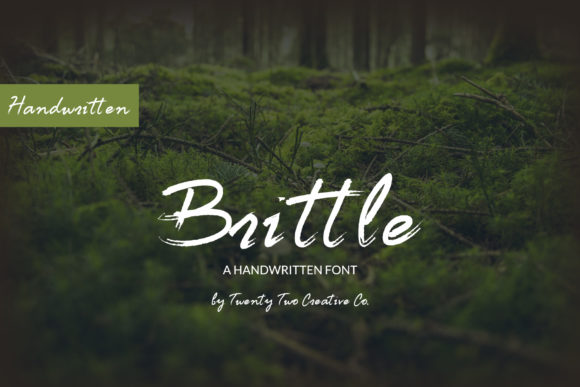
The Sound of Creativity: Unleashing the Potential of Brittle Font
Have you ever been on a nature walk, surrounded by the serene beauty of the great outdoors, when suddenly, the sound of twigs breaking under your feet sparks a creative idea? For me, that moment was the inspiration behind the Brittle font. As a designer, I’ve always been fascinated by the way sounds can evoke emotions and influence our work. In this article, we’ll explore the world of Brittle font, its unique features, and how to make the most of it in your designs.
A Design Moment: Finding the Perfect Font
I recall working on a project for a outdoor brand, struggling to find the perfect font that captured the essence of nature. The client wanted something that would stand out, yet blend seamlessly with the surroundings. After hours of searching, I stumbled upon the Brittle font, and it was love at first sight! The font’s organic, earthy feel resonated with the brand’s message, and I knew I had found the perfect fit.
So, what makes Brittle font so special? Here are a few things I love about it:
- ✨ Unique sound-inspired design that adds a touch of whimsy to any project
- ✅ Highly versatile, suitable for branding, advertising, poster design, logotypes, book covers, magazines, packaging, blogs, and more
- 💡 OpenType features, glyphs, and stylistic alternates offer endless creative possibilities
Of course, no font is perfect, and Brittle has a few quirks:
- 🤔 Some characters may appear a bit fragile or delicate, requiring careful consideration for optimal legibility
- ⚠️ Limited use of uppercase letters, which may not be suitable for all design applications
The Designer Inspiration: A Story of Nature and Creativity
The story behind Brittle font begins with a walk in the woods. The designer, inspired by the sound of twigs snapping underfoot, sought to capture the essence of nature in a font. Through countless hours of research and design, Brittle font was born – a unique blend of organic and creative elements.
Q: What is the inspiration behind Brittle font?
A: Brittle font was inspired by the sound of twigs breaking underfoot during a nature walk.